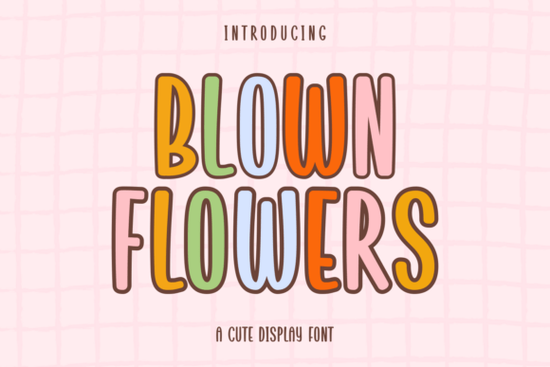
Finding the right typography can make or break a project. When working on lifestyle branding or delicate wedding suites, you often need something softer than standard sans serifs. That is where Blown Flowers Font comes into play. It offers a rounded, minimalistic charm that feels warm and inviting. Many creators find themselves returning to this style because it avoids harsh edges while still commanding attention. Whether you are designing digital assets or preparing files for a cutting machine, the visual tone matters significantly.
The description highlights its ability to bring together comfort and tranquility. In practice, this translates to a typeface that doesn't compete with imagery but supports it. You will notice its soft attributes exude a gentle atmosphere perfectly suited for clean, modern designs. If you are unsure if it fits your current project, consider how it interacts with negative space and white background elements.
Does this typeface work for personal stations?
Wedding invitations and greeting cards require a specific level of legibility and grace. Because this is a display font, it stands out in the crowd for headlines, titles, and creative use. The eminently feminine design is handcrafted to perfection, bringing a digital edge to smooth typography. You might use it to letter a welcome sign or frame a quote within a banner image for your blog.
How does it compare to other trendy fonts?
Designers often look for alternatives to ensure they aren't repeating a trend too heavily. While Blown Flowers offers a classic floral vibe, there are variations depending on the specific texture you want. For example, if you are looking for a stronger personality with slightly more character, exploring display typefaces with intricate details can provide inspiration. Similarly, organic partners for branding sometimes lean towards nature-themed cuts like those found in botanical styles.
Sometimes, you might need to mix styles within a single layout. A softer font pairs beautifully with a bolder support. However, if you find yourself needing something with more impact, you could test a bold pop style for secondary headings. Conversely, if you need intricate ligatures, examining request font styles helps understand how specialized characters handle spacing.
Can I use this for commercial merchandise?
Ultimately, a good font saves time by reducing the need for complex editing. Witness the elegance of chic and subtle flair in the dress of boutique designing with this selection. Let its allure inspire creativity, and make it your go-to font for every project that speaks of style and grace.